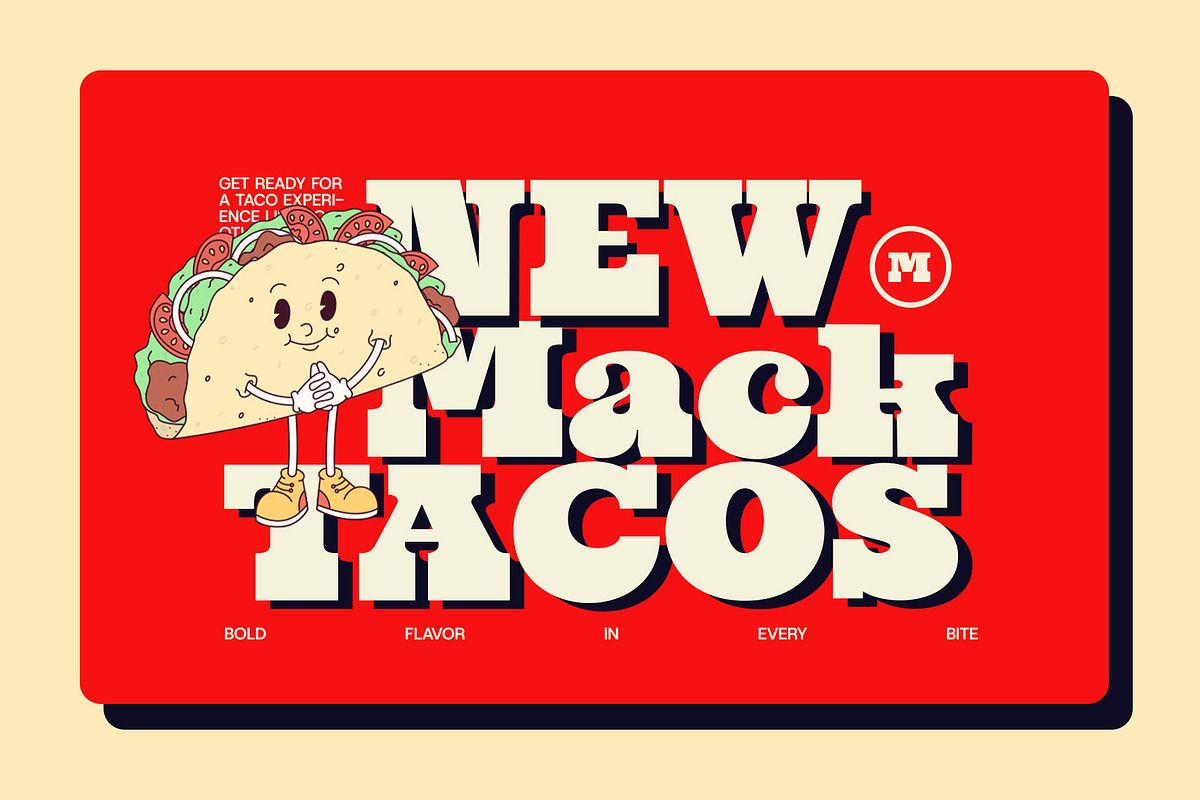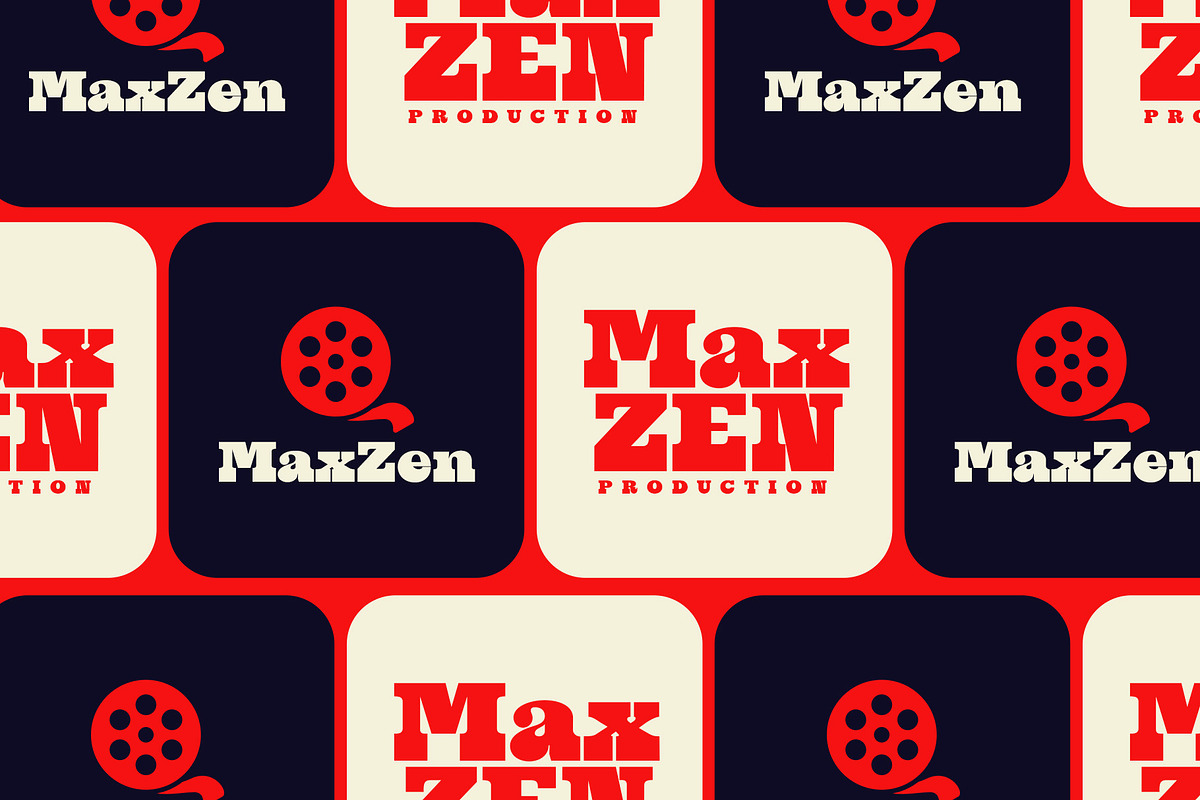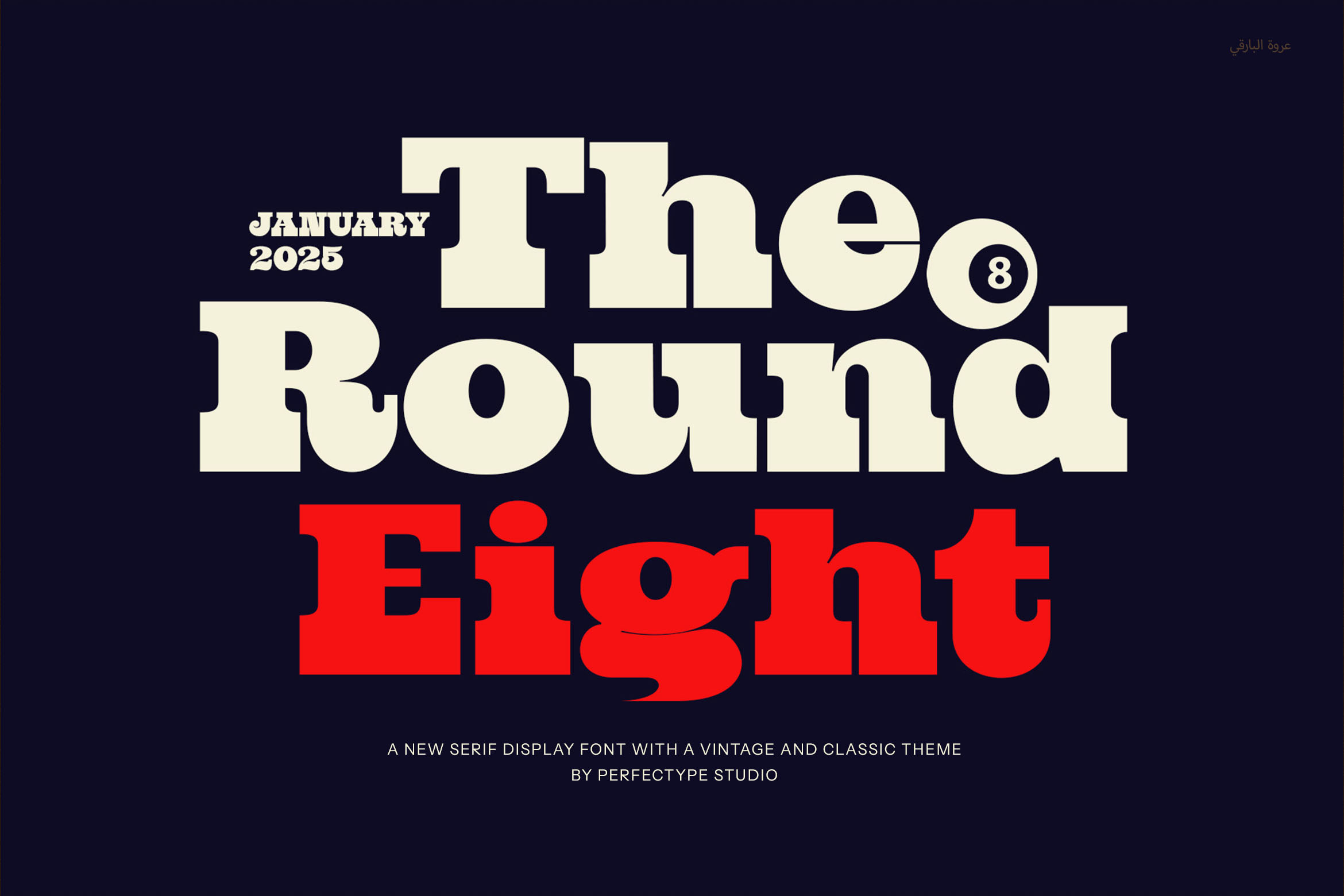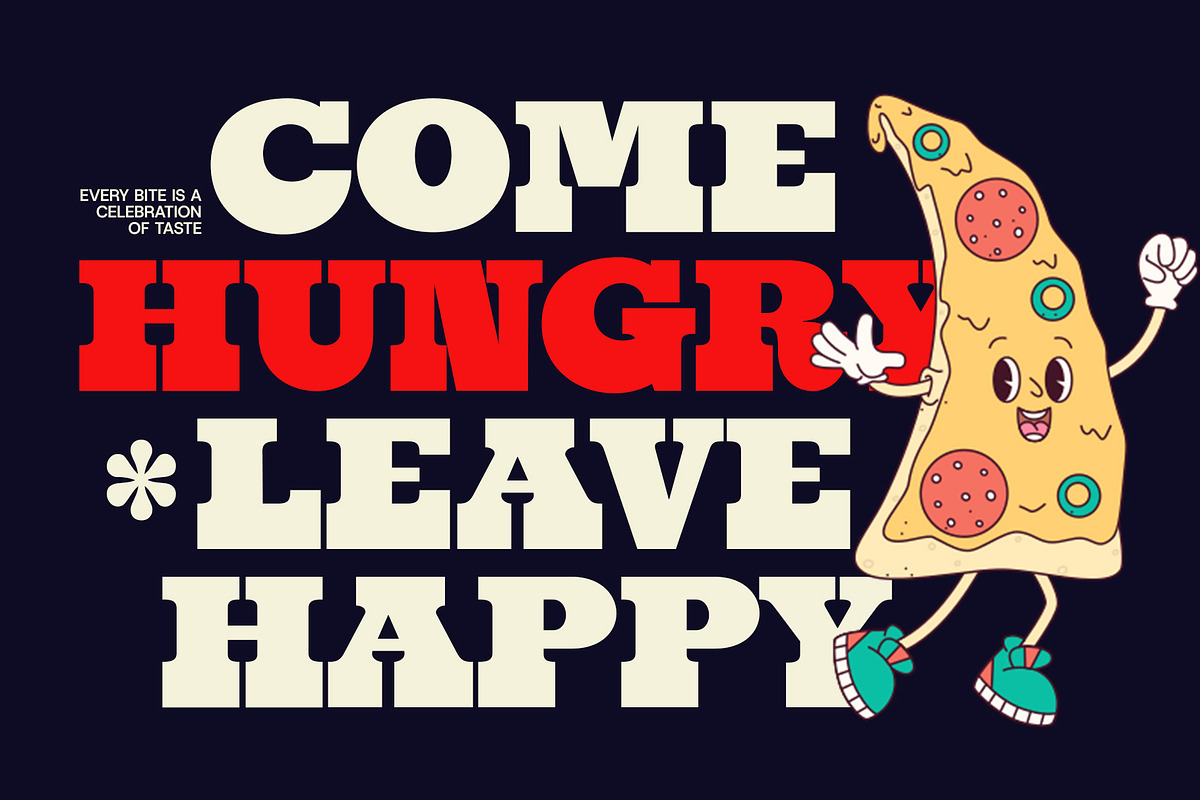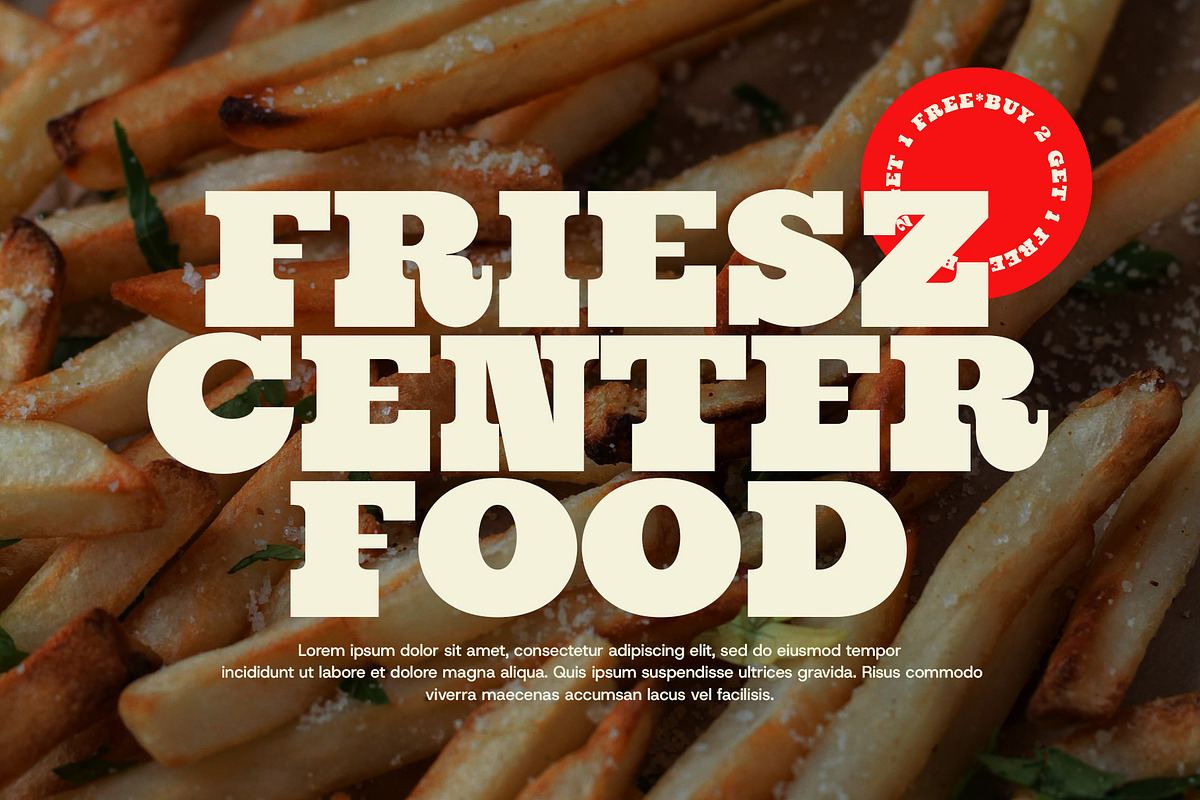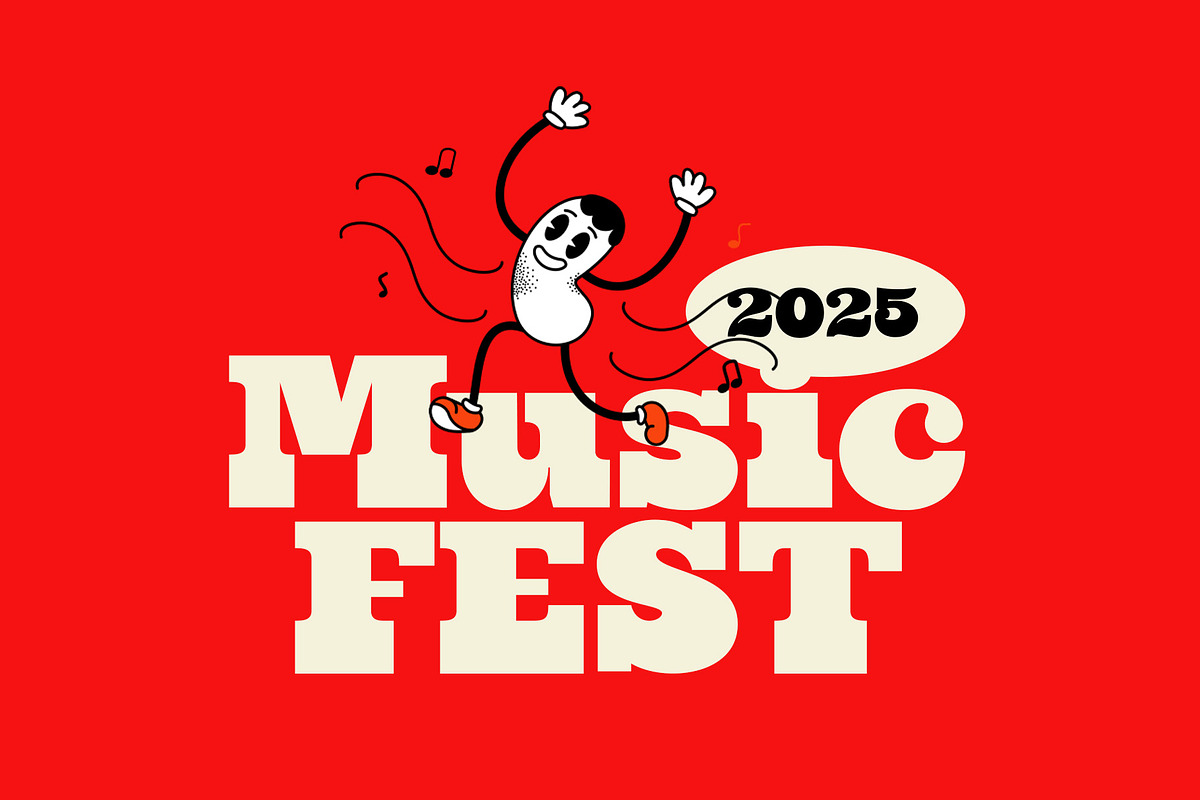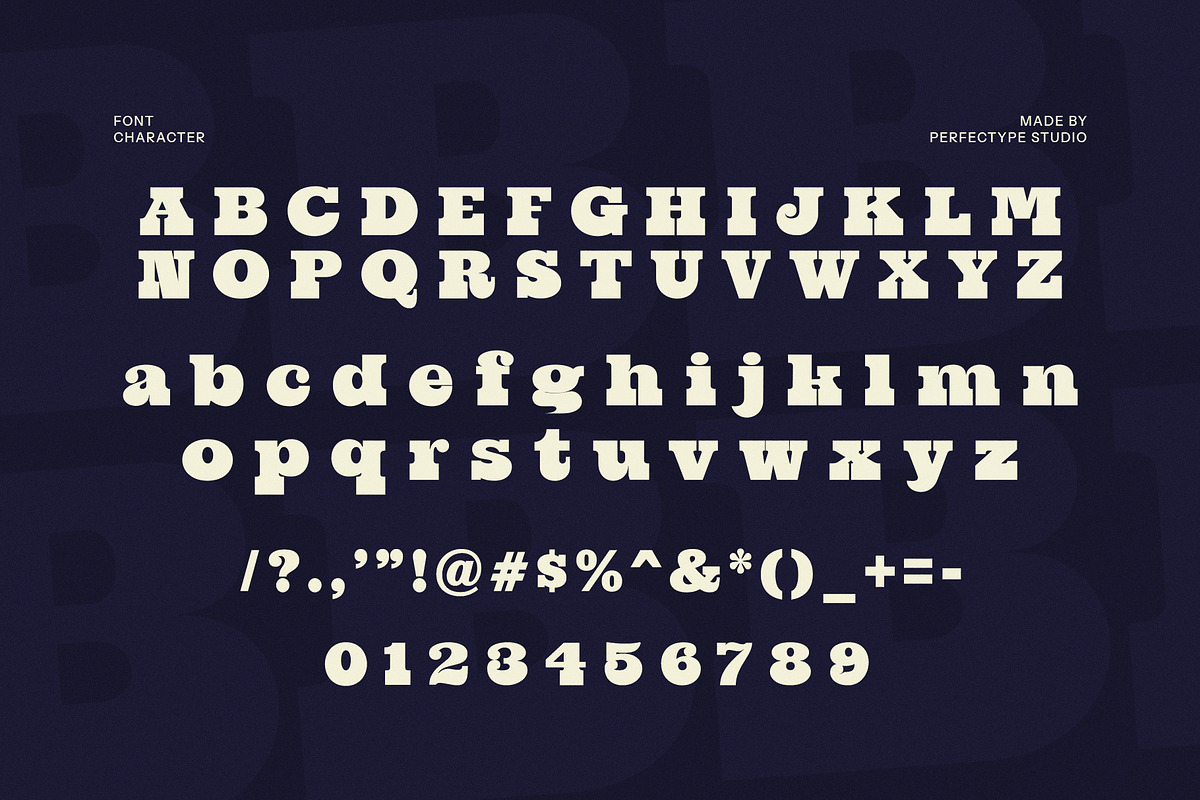
The Round Eight Serif Font
The Round Eight Serif Font is a bold and distinctive slab serif typeface that combines vintage charm with a modern twist. Its thick, rounded edges and sturdy structure give it a unique, eye-catching presence perfect for making a statement. The font's classic, retro-inspired design exudes timeless appeal while its clean, rounded shapes ensure a fresh, contemporary feel that fits seamlessly into a variety of design projects.
With its strong, commanding presence, The Round Eight is ideal for logos, branding, and large headlines that need to stand out. Whether you're crafting a sophisticated boutique brand, an upscale food label, or a stylish magazine layout, this font brings personality and boldness to any creative concept. Its substantial weight makes it perfect for attention-grabbing advertisements, product packaging, and digital media, ensuring your message is both memorable and impactful.
The Round Eight's vintage aesthetic is balanced by its versatility, offering a modern touch that fits both traditional and forward-thinking brands. Its unique design elements make it perfect for projects that seek to evoke nostalgia while staying fresh and relevant in today’s design landscape. Whether used in bold, graphic-heavy layouts or minimalist settings, The Round Eight Serif Font stands out with its strong presence and timeless appeal.
From boutique branding to food and lifestyle industries, The Round Eight is the perfect choice to infuse your designs with a bold, classic character, ensuring your brand leaves a lasting impression.